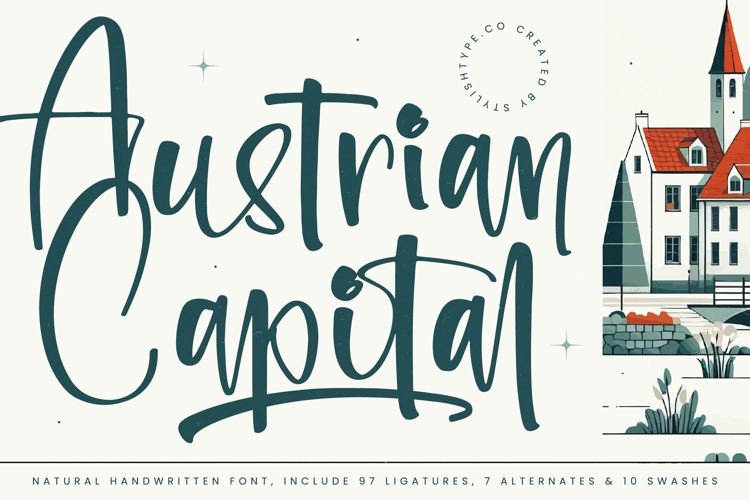
Austrian Capital - Natural Handwritten Font
The bold yet fluid strokes of Austrian Capital adapt seamlessly across digital platforms and print applications, making it an excellent choice for a variety of creative projects. Perfect for branding, event posters, social media content, packaging design, editorial layouts, and stationery projects, this handwritten script font ensures that your designs carry a memorable and distinctive identity.
The true strength of Austrian Capital lies in its ability to communicate personality and authenticity. Its strokes feel casual yet confident, while its ligatures and alternates allow you to experiment with tone — from playful and quirky to refined and modern. This makes it particularly suitable for industries such as lifestyle, food & beverage, fashion, children’s products, and creative advertising, where brand personality and emotional resonance are key.
Austrian Capital is more than just a decorative typeface; it is a storytelling tool. It transforms simple words into captivating visuals, adding a human touch that ensures your work connects with audiences. From logo design and editorial spreads to product packaging and advertising campaigns, this handwritten font enhances your creative projects with a quirky handwritten vibe that is both unique and timeless.
If you are looking for a handwritten font that combines natural flow, professional usability, and creative versatility, Austrian Capital is the perfect choice. It brings warmth, authenticity, and modern charm to your designs, ensuring that every project stands out with a signature handwritten identity.